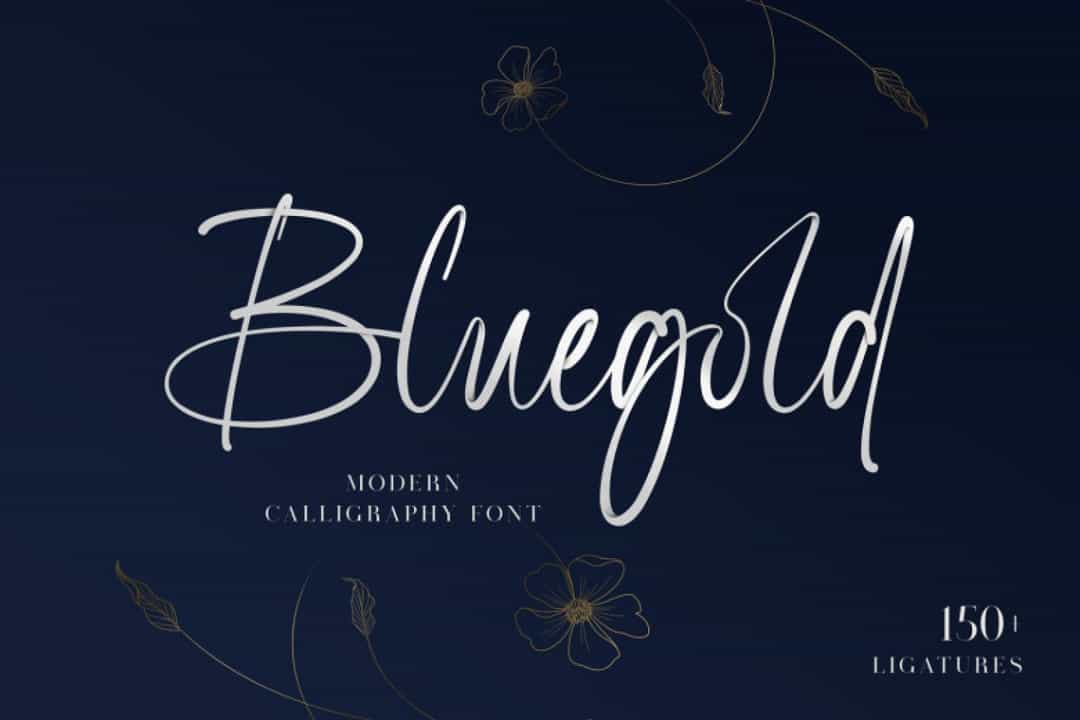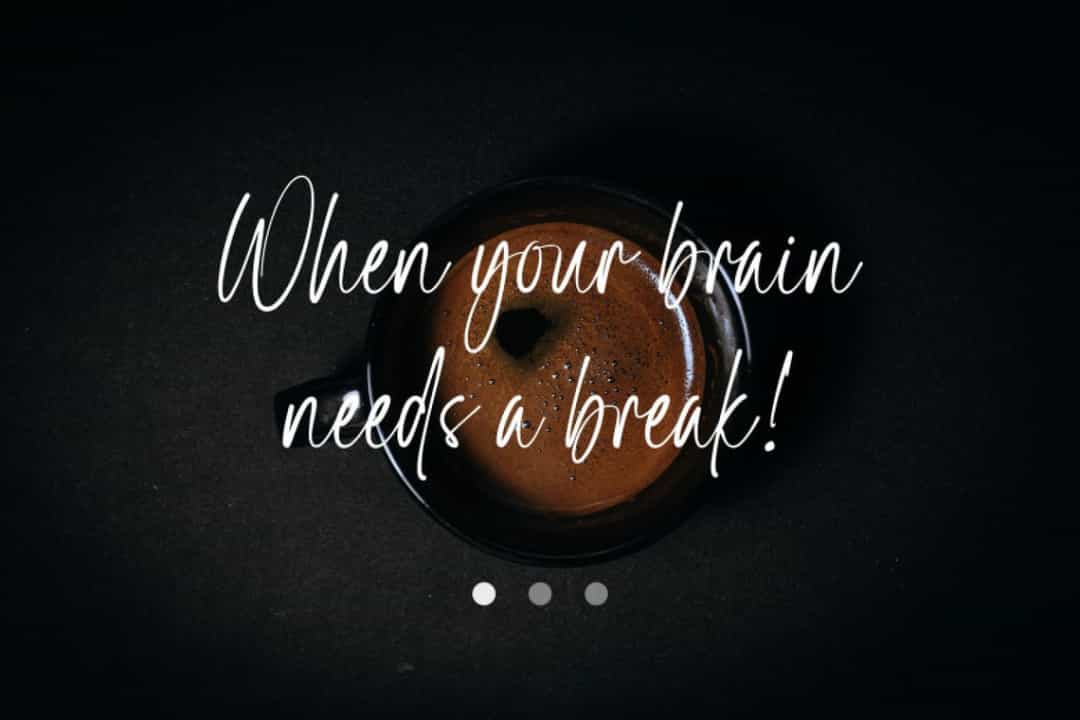
Bluegold Font is an impressive handwritten calligraphy font with over 150 Ligatures that is ideal for branding and logo design projects, wedding invitations, stationery designs and stationery packages as well as advertisements, social media posts packaging for products designs labels photographs watermarks or special events or any other projects that require handwritten calligraphy fonts.